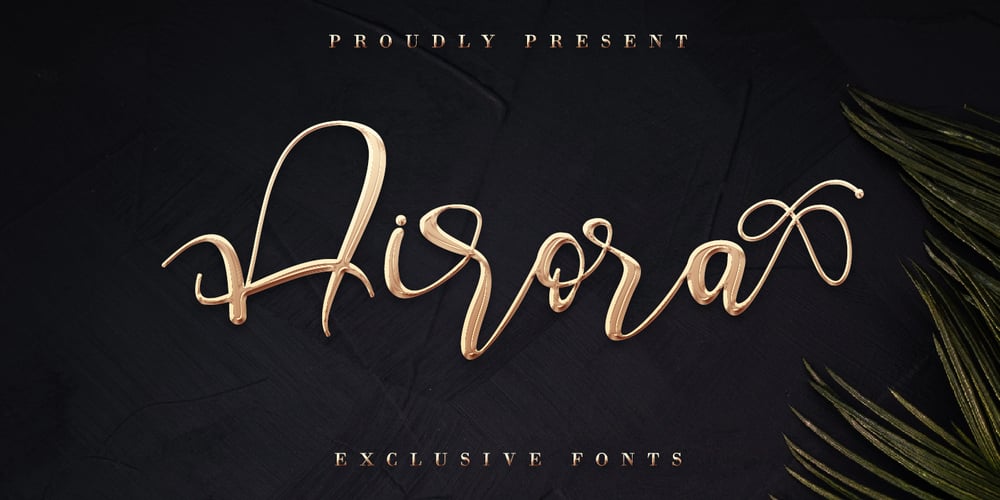
Airora Font Family was designed by Thomas Aradea and published by Letterara. Airora contains 2 styles and family package options. Airora is a sweet and cool script font, perfect for adding a playful feel to any design idea!